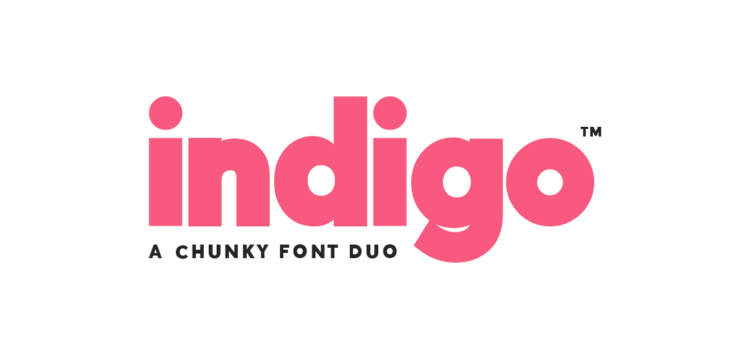
indigo
Indigo Font Duo Font – Free Download Introduction to Indigo Font Duo Font “Our brand new font duo ‘Indigo’ won’t give you the blues… It’s a fab combo of the sans serif ‘Indigo Regular’ and the outline version ‘Indigo Outline’.